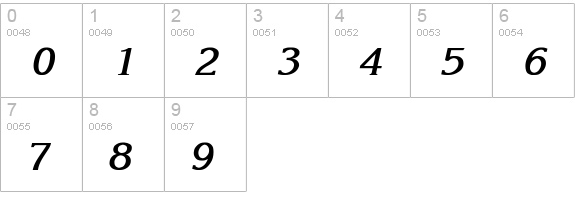
Krone Bold Italic Font Details
Krone Bold Italic is a strong, high-contrast, italic variant in the Krone typeface family \xE2\x80\x94 well suited to headlines, attention-grabbing titles, and strong calls-to-action.
Krone Bold Italic is a sophisticated and elegant typeface that exudes a sense of modernity and style. With its bold yet graceful design, this font is perfect for adding a touch of sophistication to any project. The italicized characters add a dynamic flair to the text, making it stand out with a unique charm. What sets Krone Bold Italic apart is not only its striking design, but also the fact that it is available for free download at FontsMarket.com. This means that you can easily access this beautiful font and use it in your designs without any cost. Whether you are working on a branding project, a website design, or any other creative endeavor, Krone Bold Italic is sure to elevate your work to a whole new level. Download this stunning font today and add a touch of elegance to your projects.